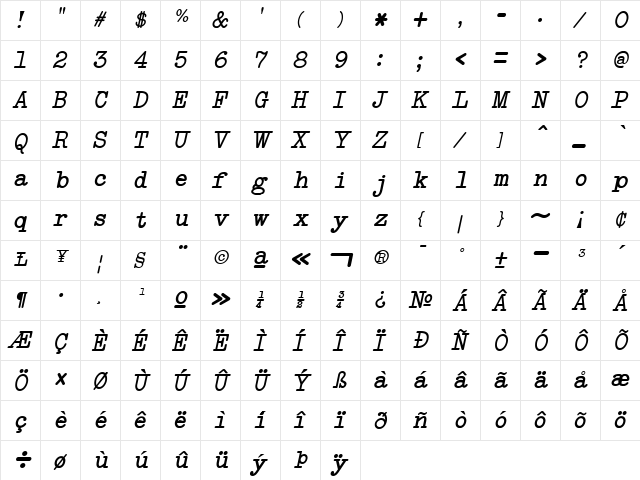
NeoBulletin Italic Regular
Design Context for NeoBulletin Italic Typeface
NeoBulletin Italic is a composed and adaptable typeface that performs quietly and consistently across a wide range of design contexts. The slanted form adds forward momentum and visual energy.
Pro Tip: Use NeoBulletin Italic for emphasis, pull quotes, and subheadings where its slanted energy can add rhythm to the layout.